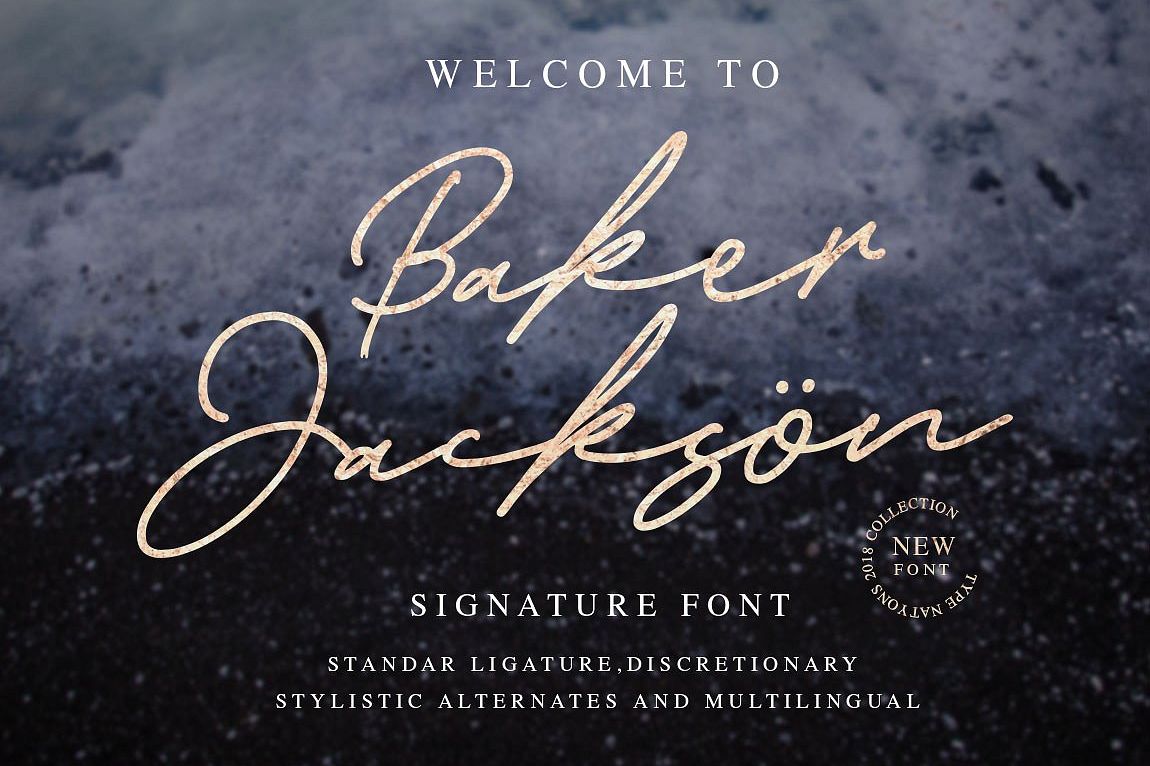
Created By Typenations
Baker Jackson Signature
Introducing Backer Jackson.. our latest signature font with classy element that make this font so gorgeous. Backer Jackson also comes with Ligatures and Stylistic Alternates that will make the signature font more real. Backer Jackson is very best choice fonts for : Wedding Invitation, branding, web content, quotes, Posters, Logos, Print Ads, Digital Ads, Promotion Product etcFeatures
• Character set A-Z with special uppercase letters
• Discretionary Ligatures
• multilingual